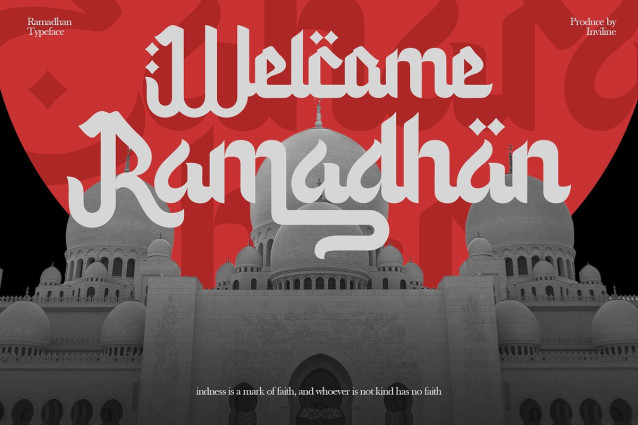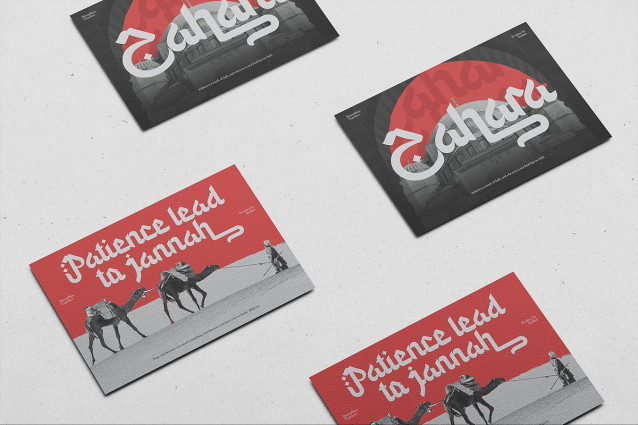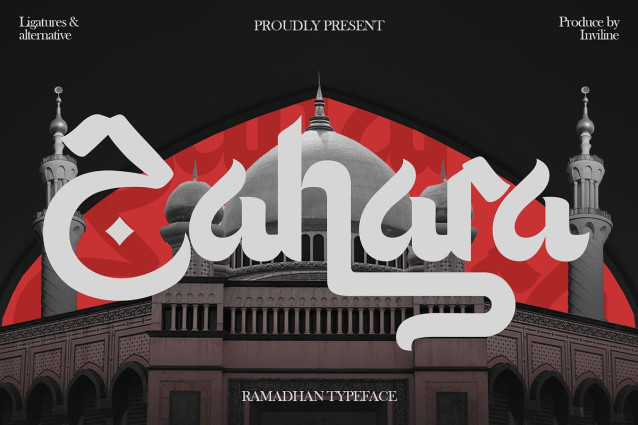
Zahara Arabic Font
Zahara Arabic Font – A beautiful Arabic ornamental font! The intricate details and elegant strokes are perfect for logos, branding, wedding invitations, etc. Download now and elevate your designs!
Uppercase & Lowercase Letters: Fully designed for a complete typographic experience
Numbers & Punctuation: All the numbers and punctuation you need for any design task
Multilingual Support: Includes characters for multiple languages, ensuring global usability
High-Quality Design: Each font is meticulously crafted down to the last detail, ensuring a polished and professional look